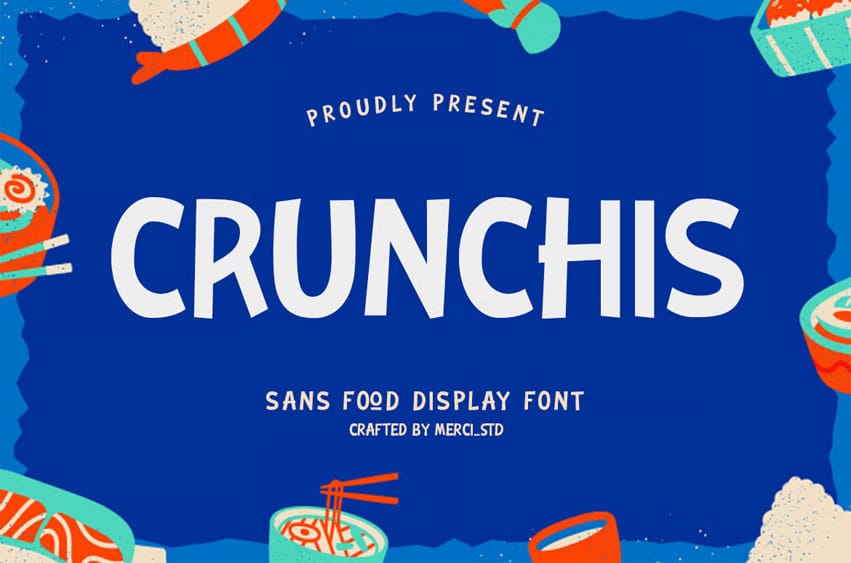
Crunchis Font is a fun and vibrant display font inspired by snack and food themes.
With rounded shapes and cheerful style, it’s perfect for packaging, kids branding, menus, and colorful design projects.
- Uppercase Letters
- Ligature & Alternate Character
- Unique Hand-Drawn Style